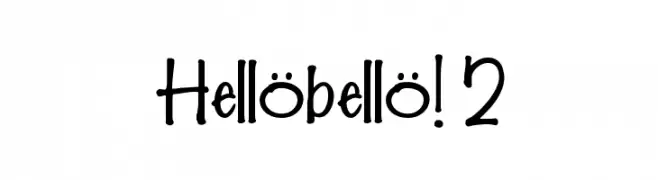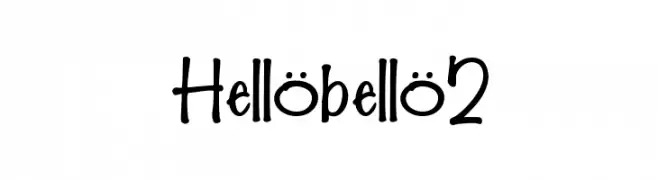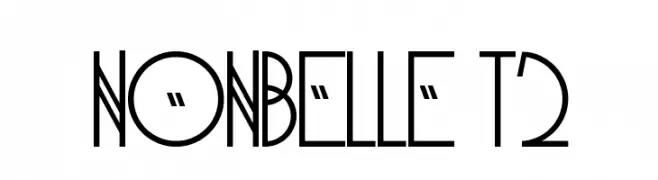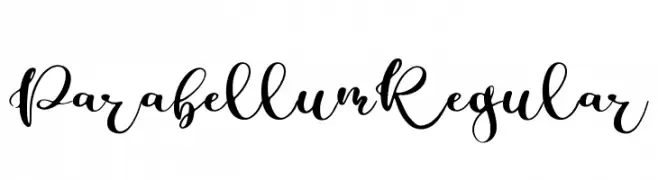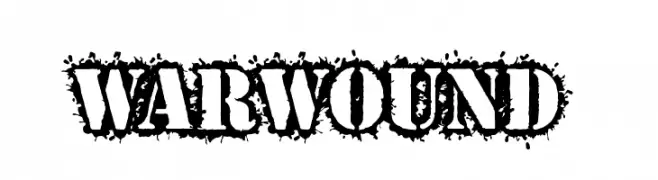
( Alexander Tiunov - creativemarket.com/Besttypeco )
A decorative cursive font with elegant loops and dynamic contrast.
( Anthony Robinson - www.redbubble.com/people/anfa/portfolio )
A bold, distressed font with a grunge, war-torn aesthetic.
( Beraka Design - José Beraka Lobos - about.me/beraka )
A bold, graffiti-inspired font with an urban, rebellious style.
( Fargun Studio - Fajar Gunawan - creativemarket.com/FargunStudio )
A whimsical and decorative style with playful swashes and flourishes.
( Fargun Studio - Fajar Gunawan - creativemarket.com/FargunStudio )
A playful, hand-drawn font with a whimsical and casual style.
( Fargun Studio - Fajar Gunawan - creativemarket.com/FargunStudio )
Playful hand-drawn decorative swashes and doodles.
( Fargun Studio - Fajar Gunawan - creativemarket.com/FargunStudio )
A playful, hand-drawn font with whimsical and irregular strokes.
( Fargun Studio - Fajar Gunawan - creativemarket.com/FargunStudio )
A playful, handwritten-style font with a whimsical and informal appearance.
( FatFactory - Mico Samardzija )
A modern geometric font with high contrast and stylish, elongated forms.
( Haksen Letters - Sarwo Edhi Prayitno )
A whimsical, handwritten font with playful loops and curves.